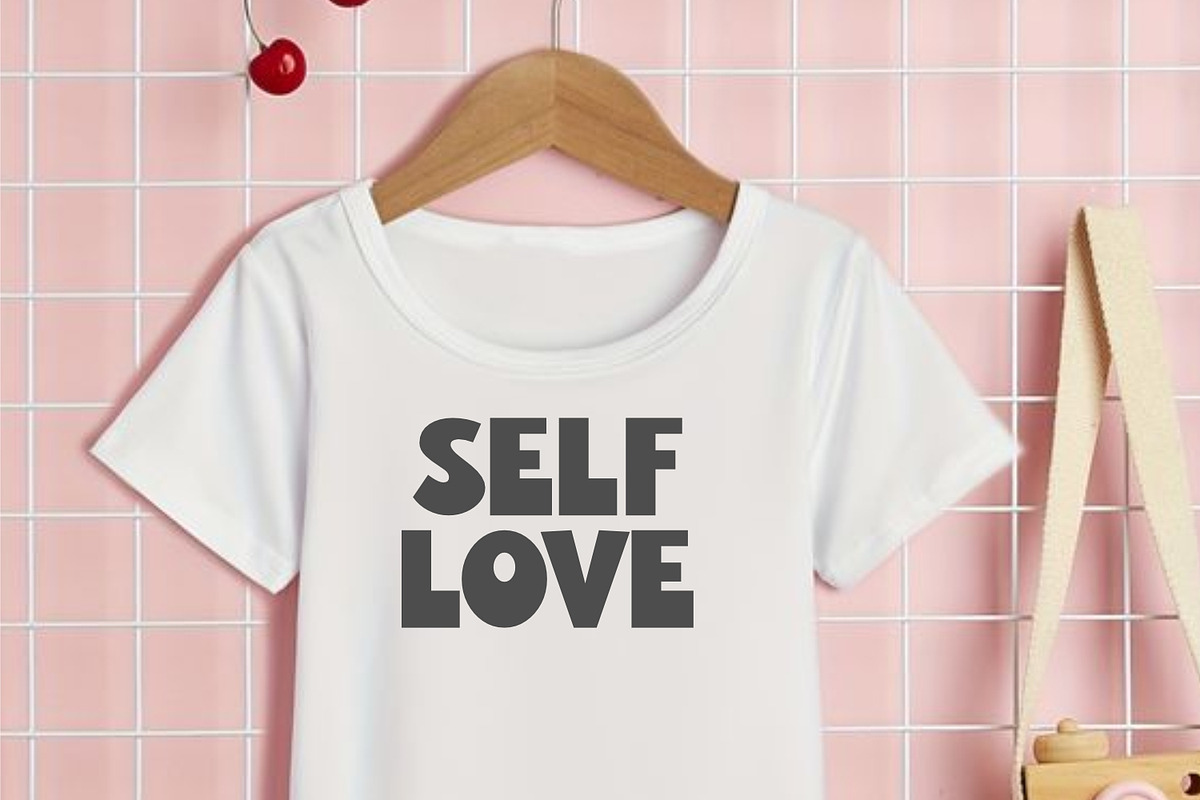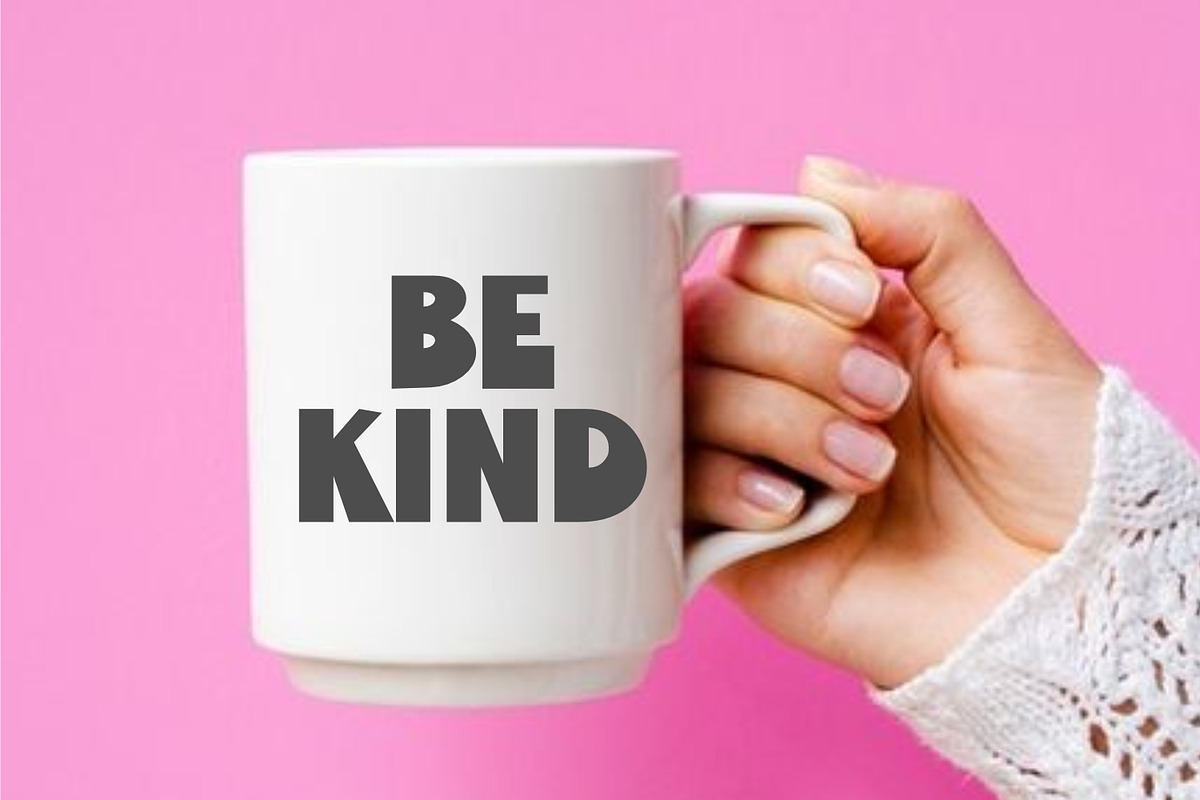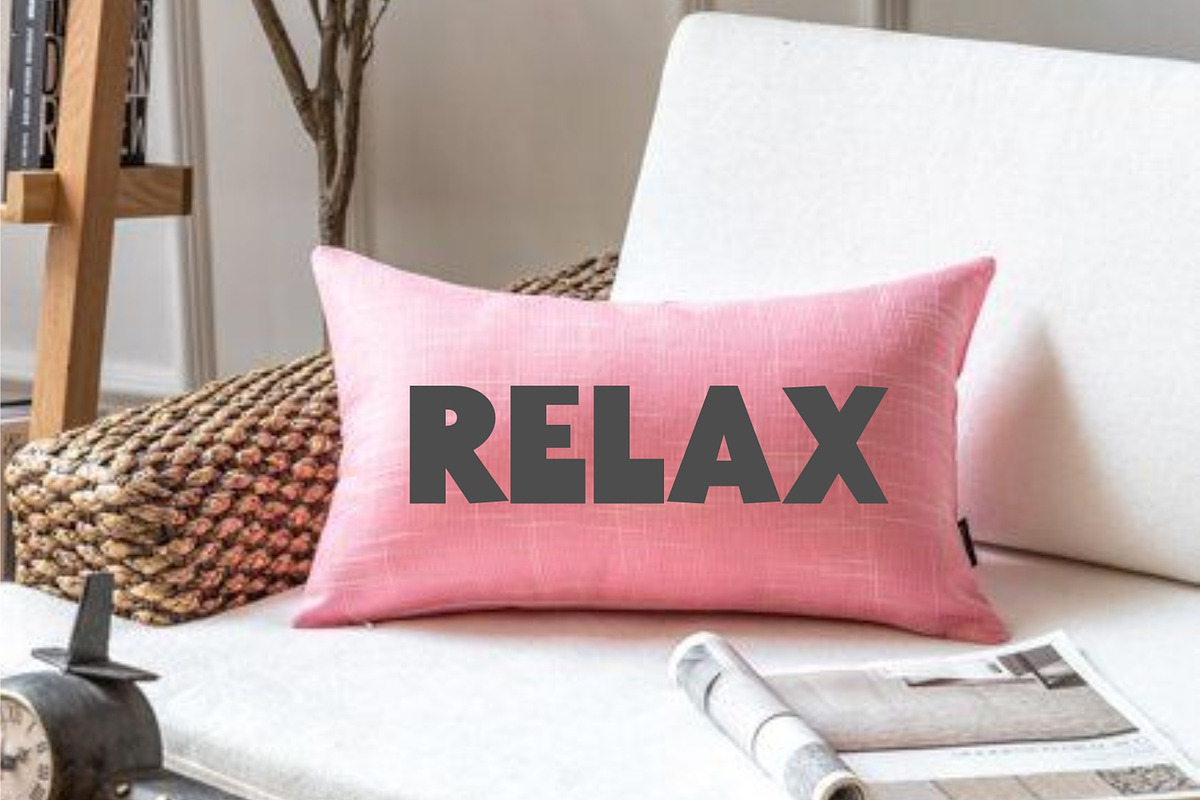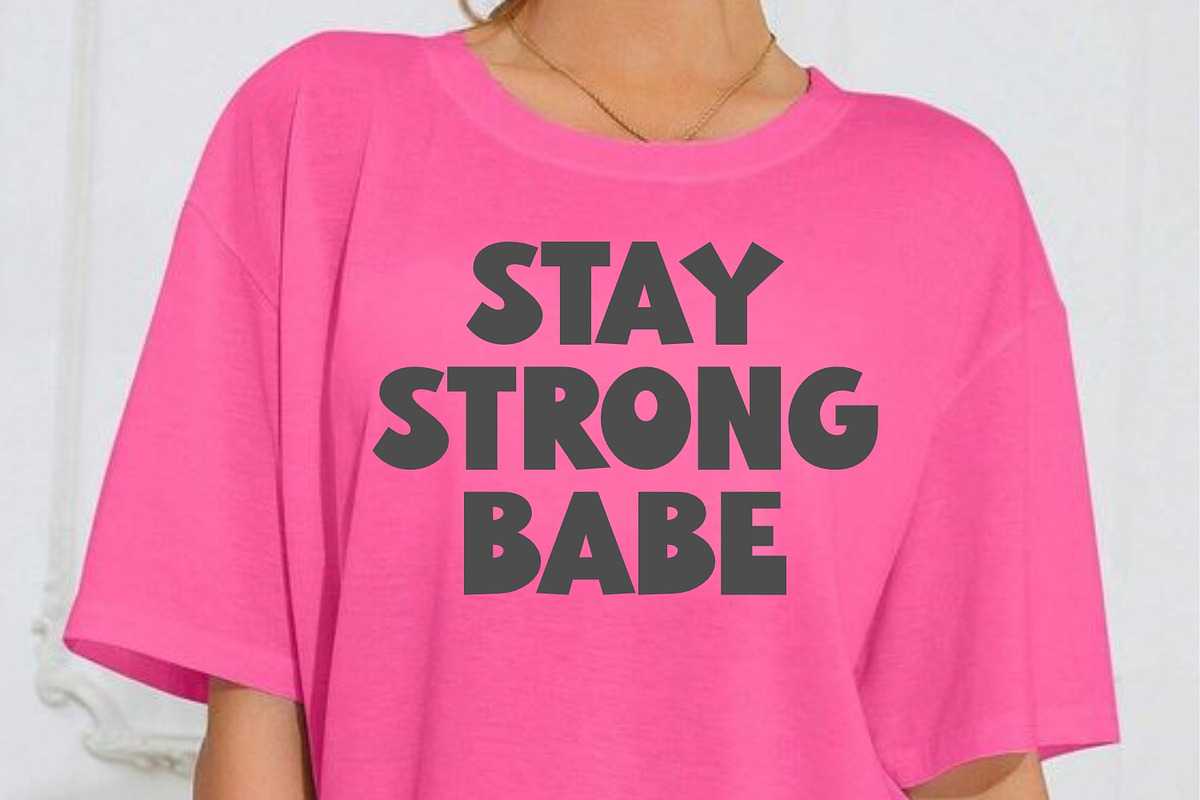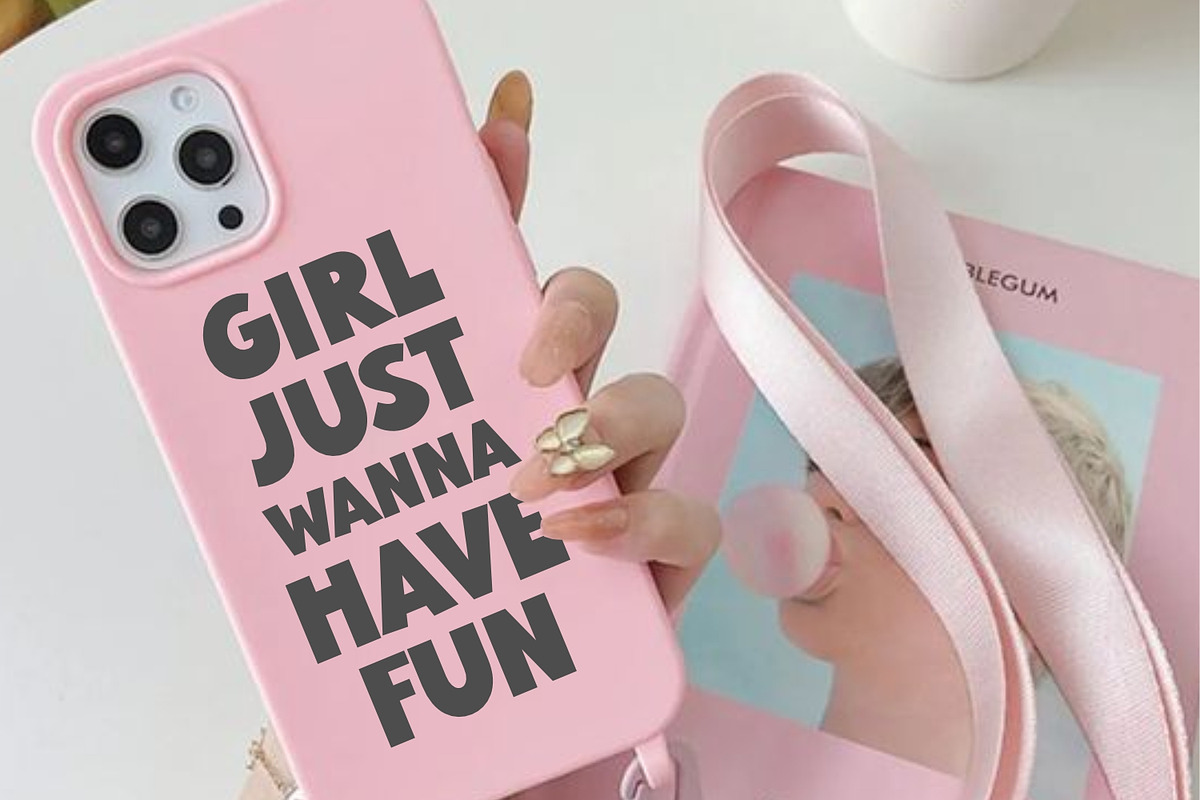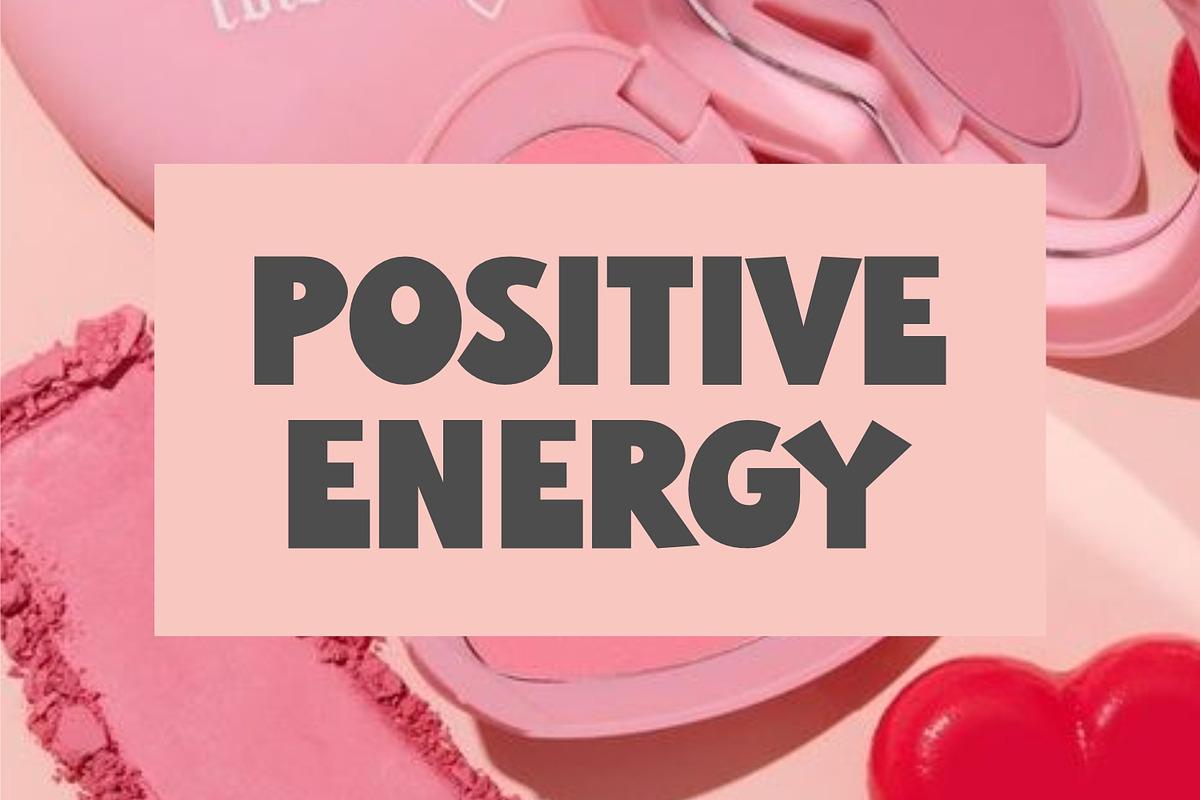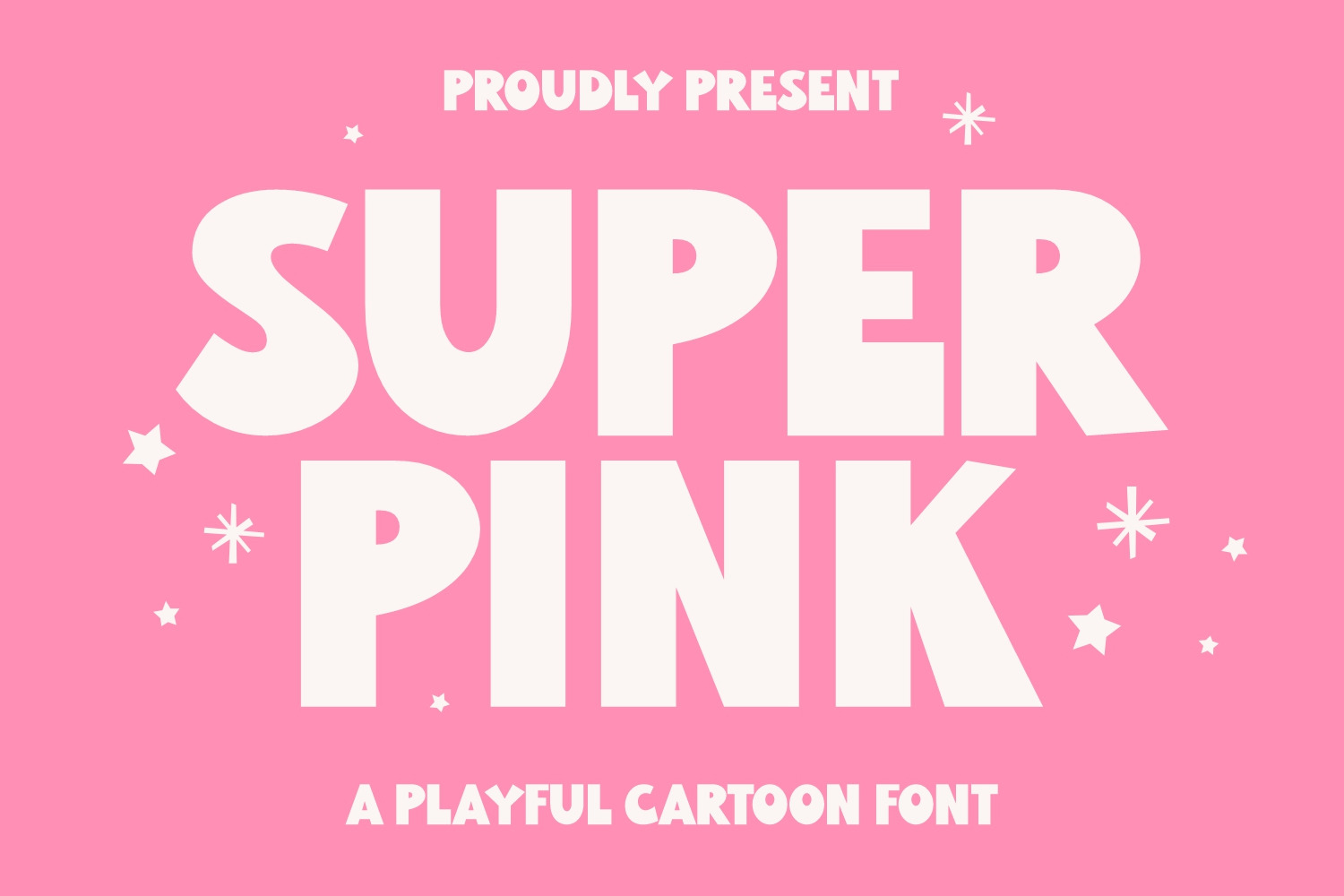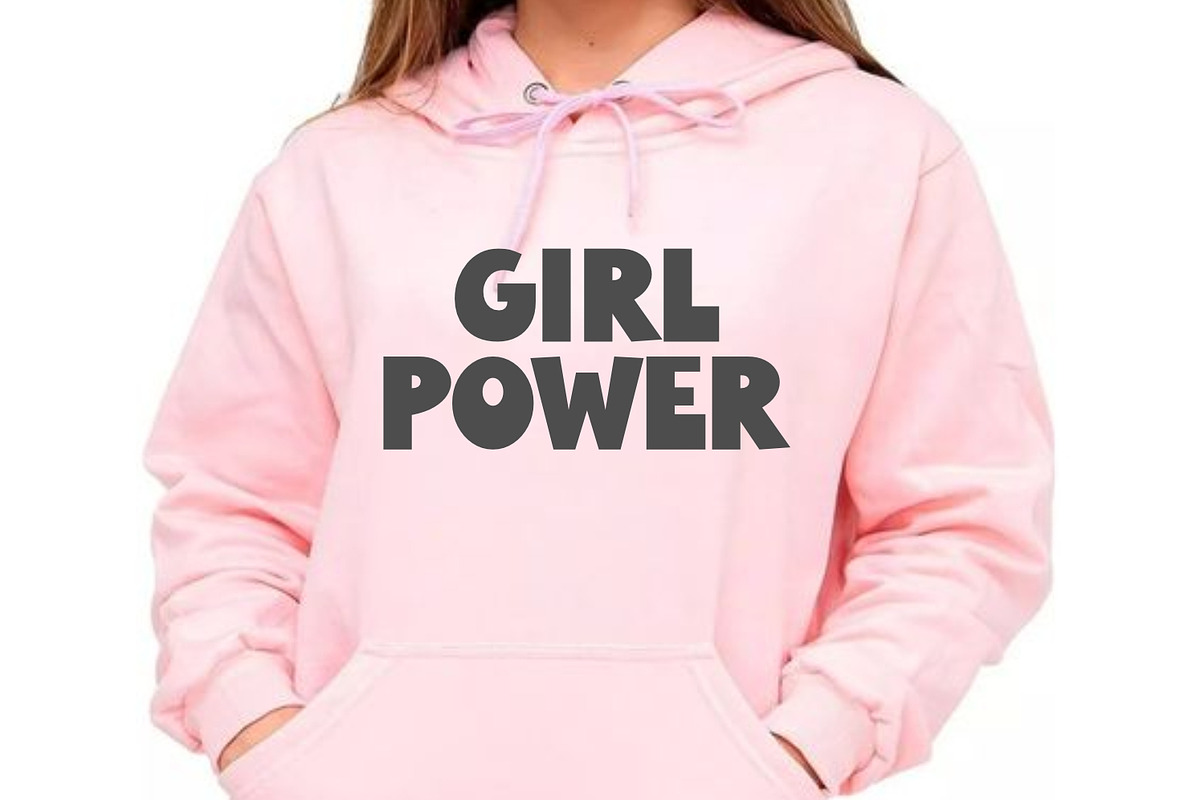
Super Pink - Cartoon Font
Introducing Super Pink – an irresistible cartoon font that boasts a bold aesthetic, sprinkled with an adorable feminine flourish. Perfectly tailored for apparel such as t-shirts and hoodies, or charmingly cast on souvenirs and phone cases, this unique font design infuses a joyful spirit into every item it graces. Imagine the delight of sipping java from coffee cups adorned with this font, or enhancing cosmetics packaging with its lively charm. Let Super Pink elevate your design to festive heights and journey into the creation of something truly extraordinary. Embrace the merriment, invite the joy, and design with Super Pink!